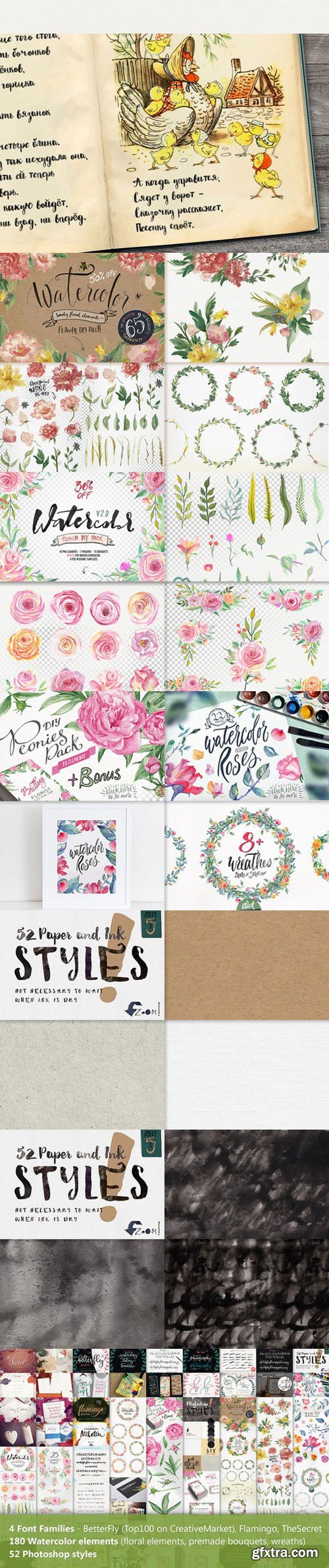
- Hi there! All the best items (containing 4 font families, 180+ watercolor elements, 50+ photoshop styles). This bundle includes BlessedPrint's top script fonts: BetterFly, Flamingo, TheSecret. This collection includes web fonts, and extended license.
Fonts
Watercolor elements
Photoshop Styles